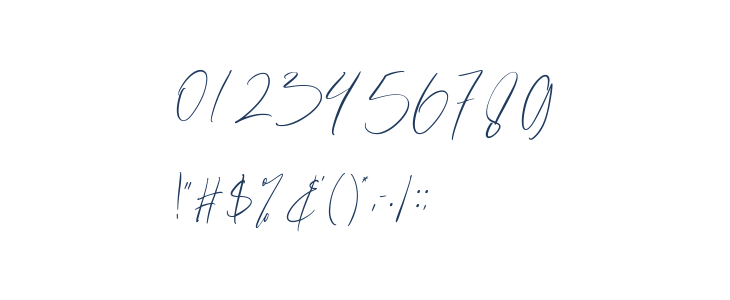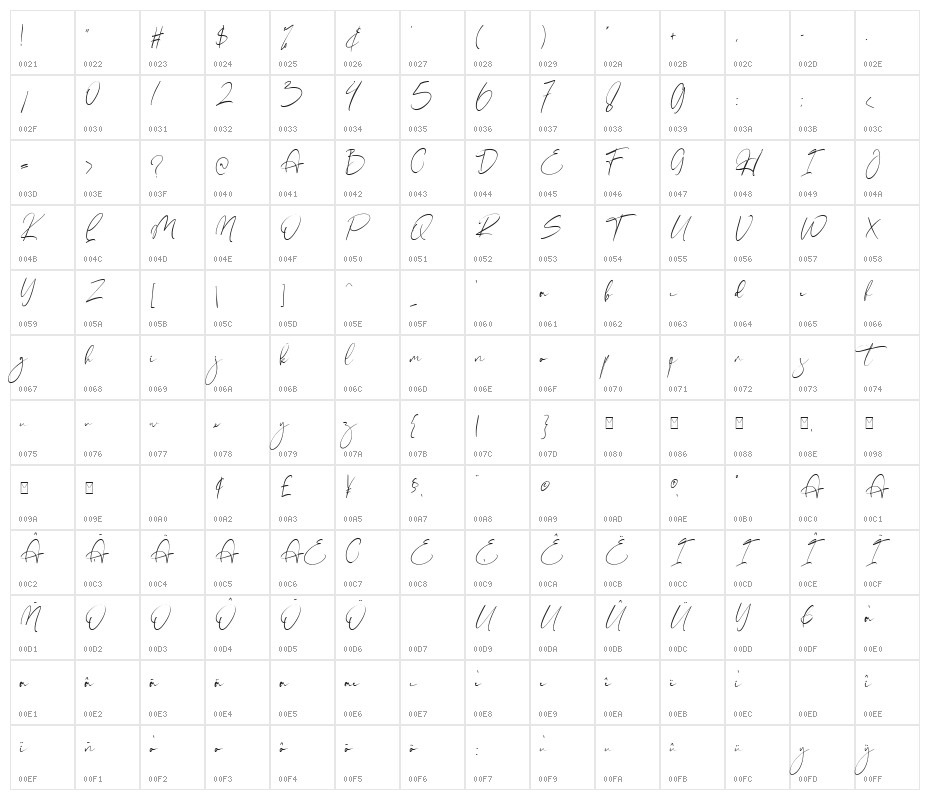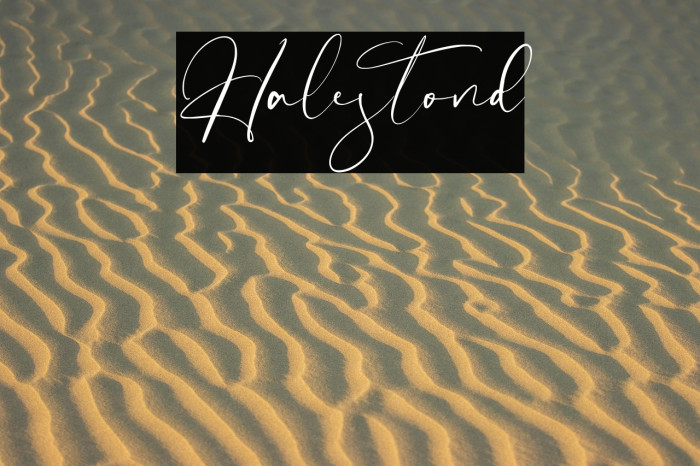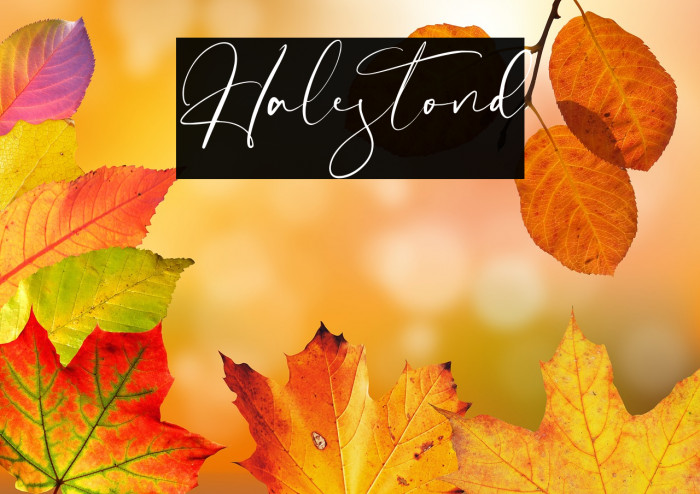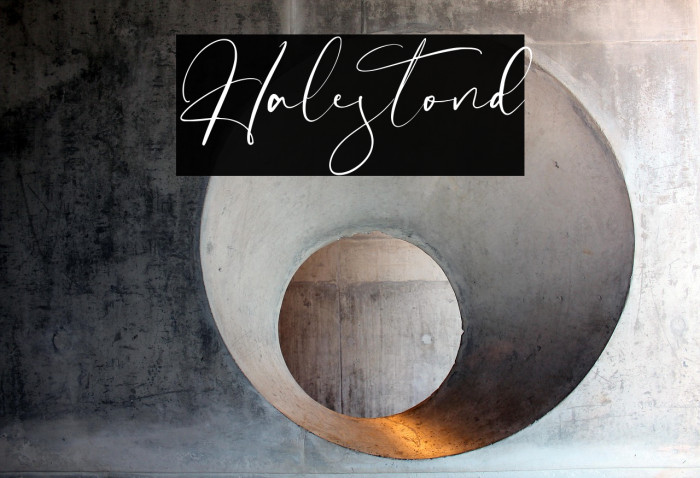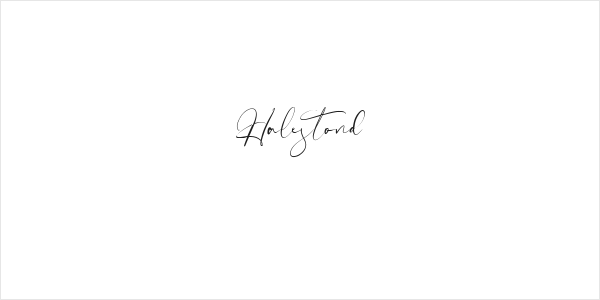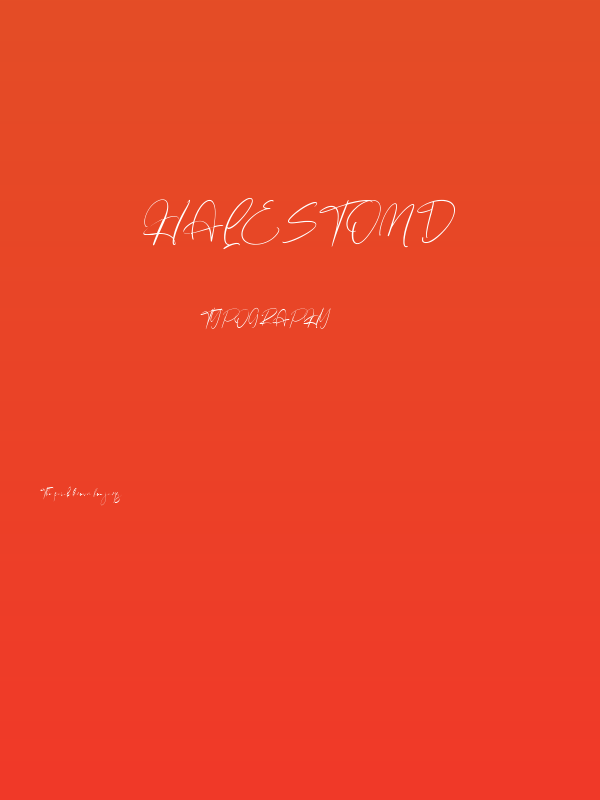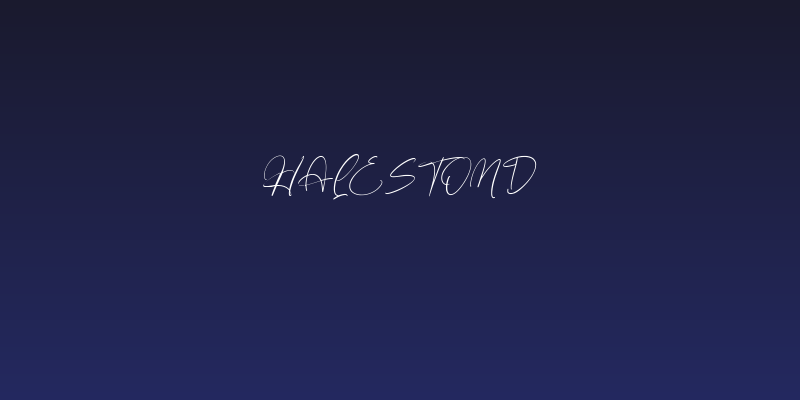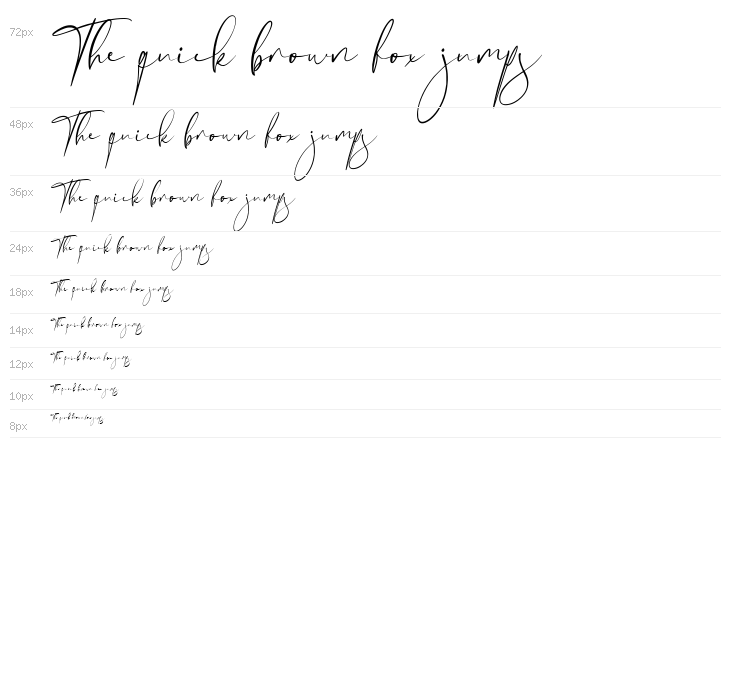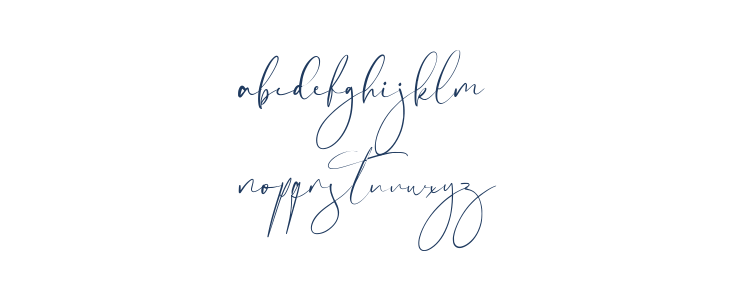
Halestond Font
Halestond Description
This font features an elegant and flowing script style, characterized by its delicate and graceful strokes. The uppercase letters are tall and slightly slanted, with sweeping curves that give a sense of motion and fluidity. The lowercase letters are more compact, maintaining the same flowing style with intricate loops and connections. The numerals are consistent with the overall script style, offering a harmonious blend of elegance and readability. Special characters are designed with the same attention to detail, ensuring they complement the alphabetic characters seamlessly. This font exudes a sense of sophistication and is ideal for projects that require a touch of class and elegance.
| Overall Style | Elegant |
| Use Case | Logos, Invitations, Branding |
| Proposed Projects | Ideal for wedding invitations, elegant branding, personal stationery, and upscale packaging. |